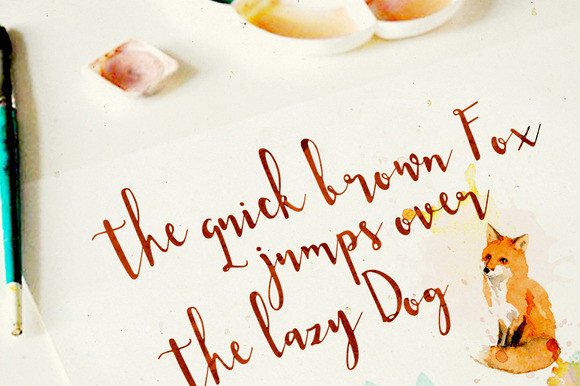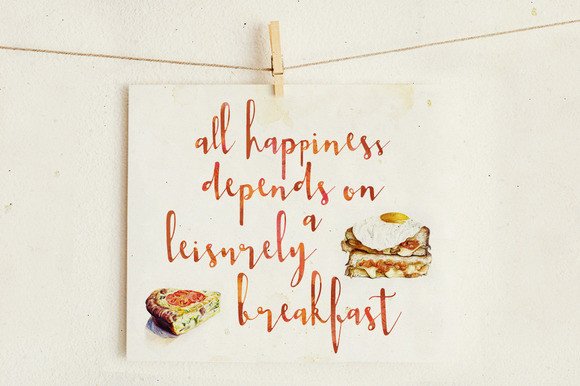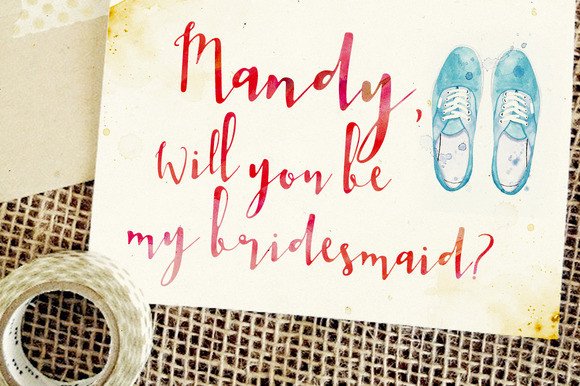
Jane Bugg Font
About Jane Bugg Font
Jane Bugg is a neat, brush script type that fits many feminine and elegant design items such as invitations, posters, return addresses, custom cards, signatures, branding work and much more.